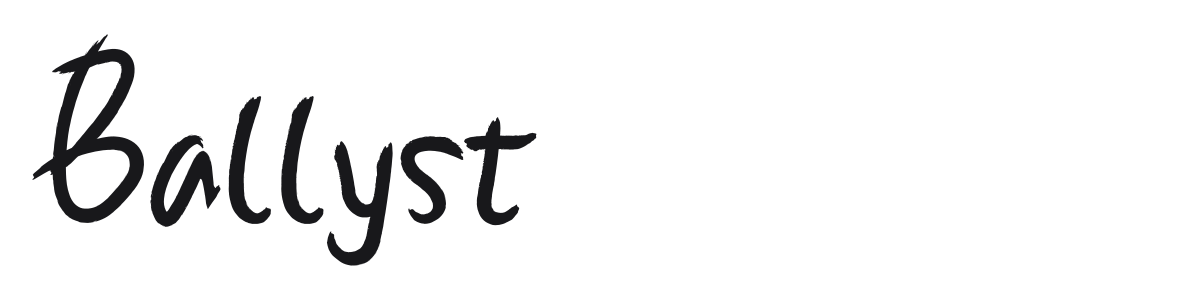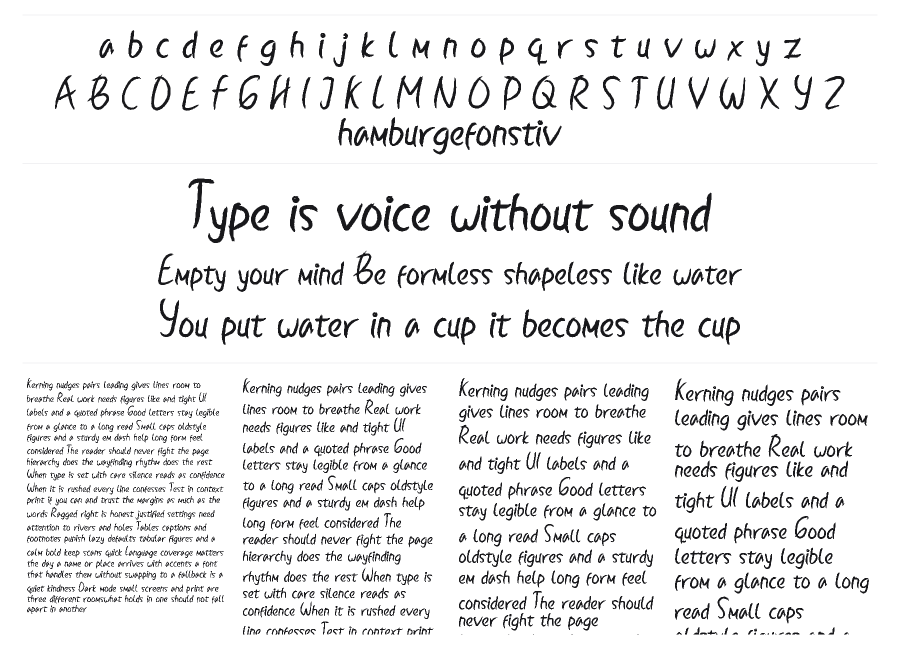
Ballyst
Ballyst is a casual brush script with an upright stance and the loose, authentic quality of a marker drawn by hand. The irregular stroke edges and natural ink texture give it genuine energy without feeling sloppy. It works well anywhere a design needs warmth and a handmade feel at display sizes.